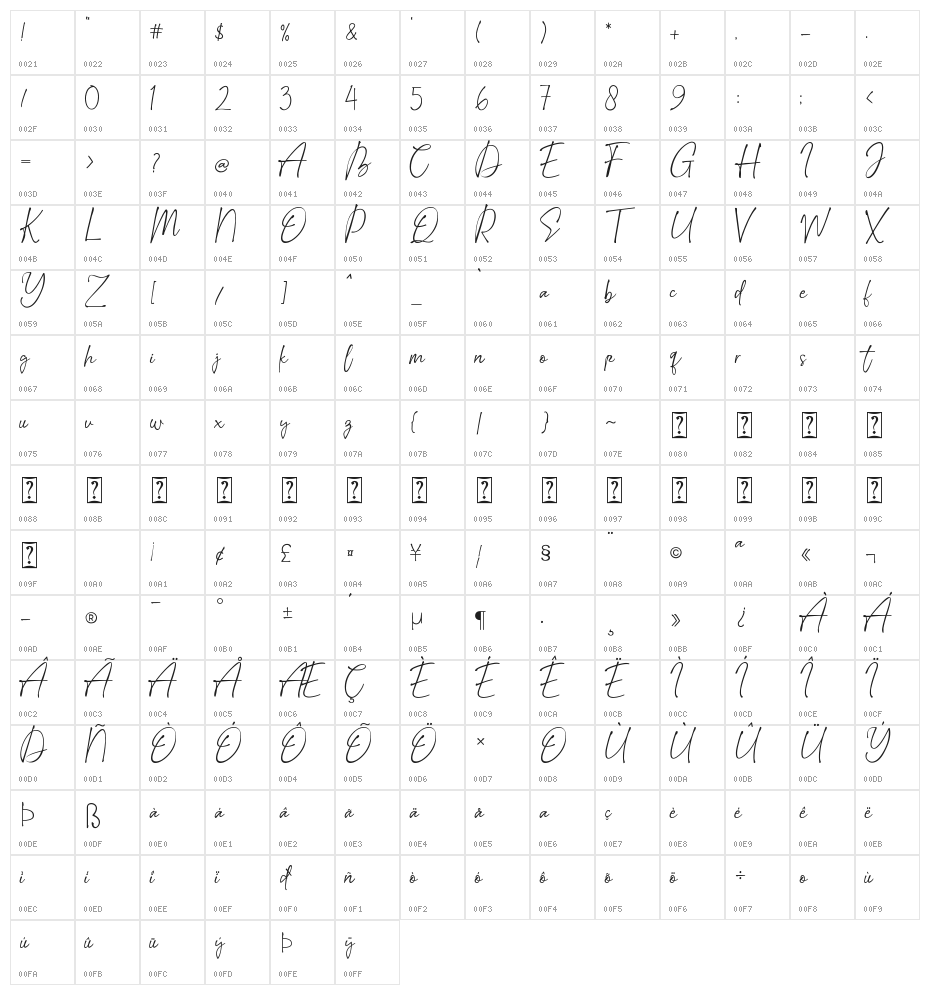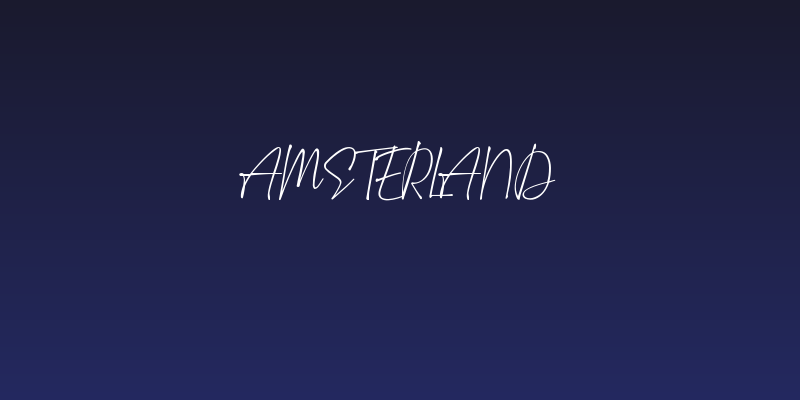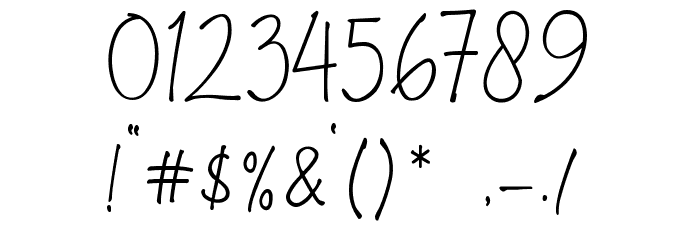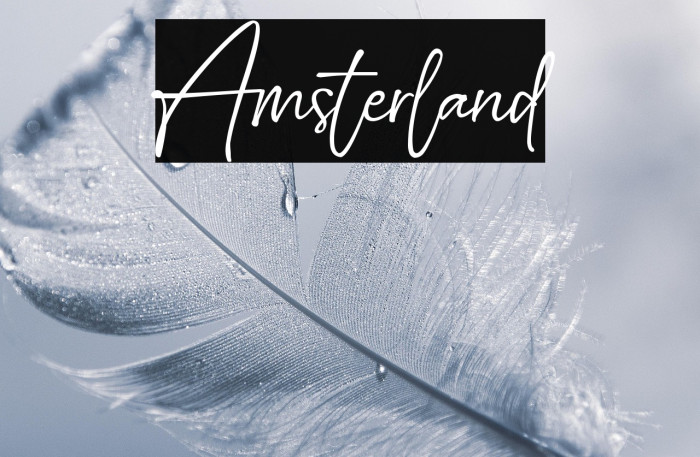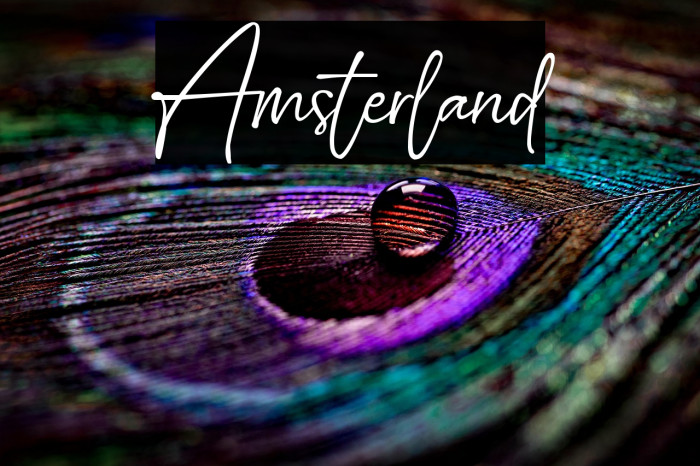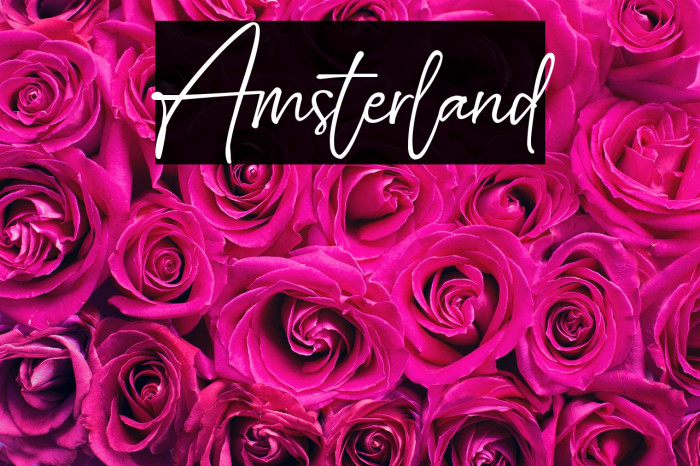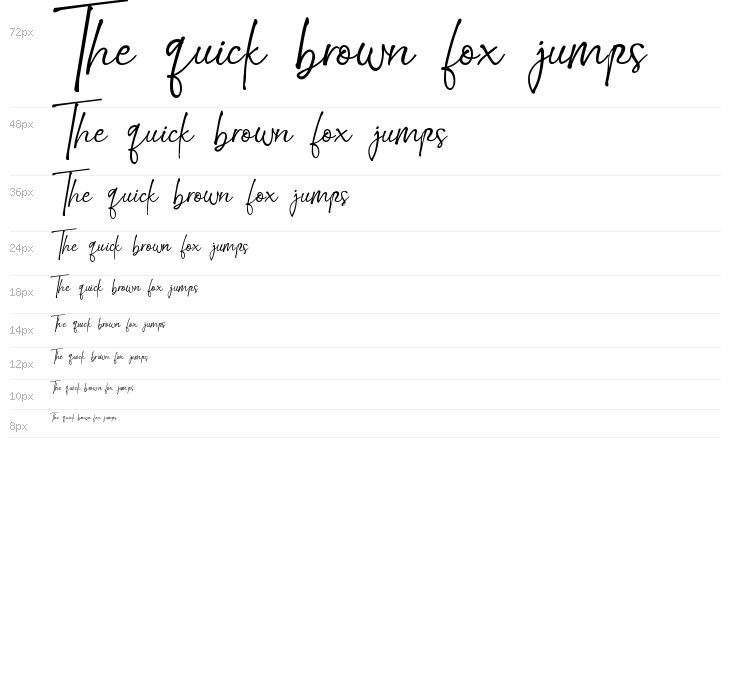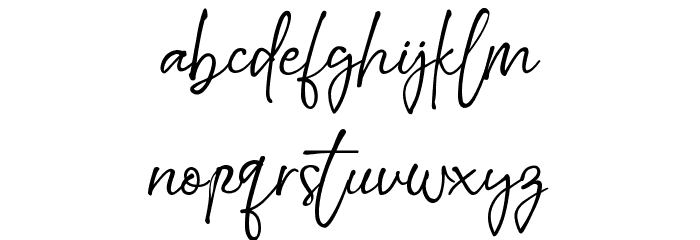
Amsterland Font
Amsterland Description
This font features a lively and expressive handwritten style, characterized by its fluid and dynamic strokes. The letters are elegantly connected, giving it a natural and personal touch. The uppercase letters exhibit a playful yet sophisticated flair, while the lowercase letters maintain a consistent flow. The numerals are clear and legible, complementing the overall aesthetic. Special characters are thoughtfully designed to match the font's energetic personality, making it suitable for creative and artistic projects.